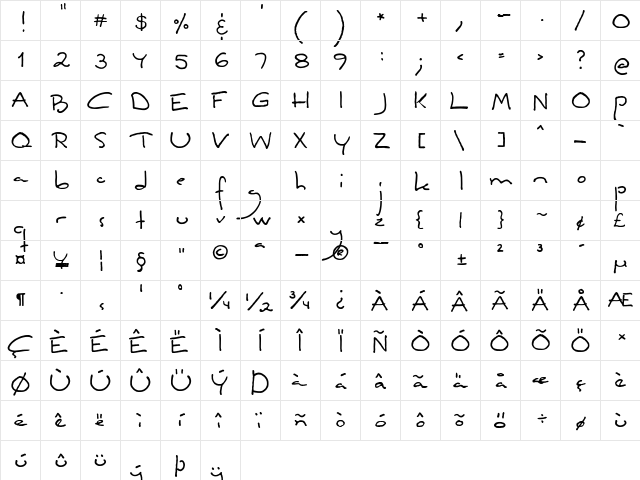
FG Ellinor Regular
| Foundry | Font Garden |
| Designer | Font Garden |
Design Context for FG Ellinor Typeface
FG Ellinor takes a measured approach to typography — its balanced proportions and neutral character make it a reliable workhorse for both digital and print work.